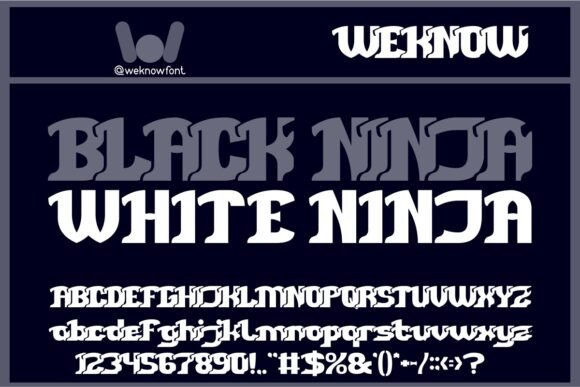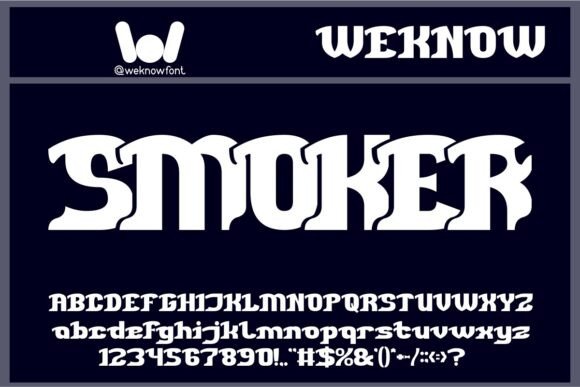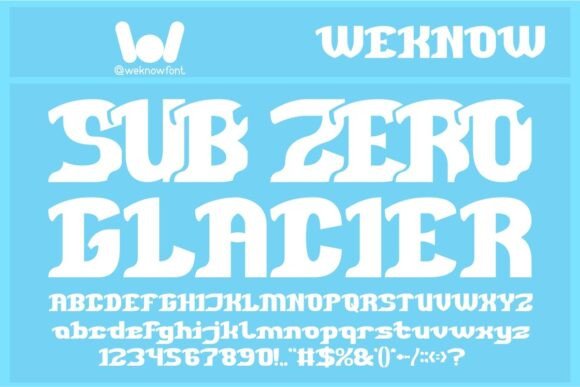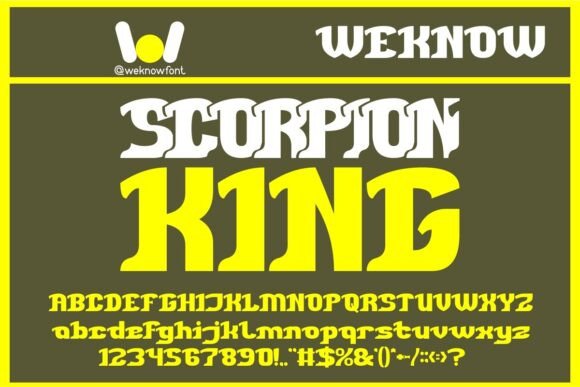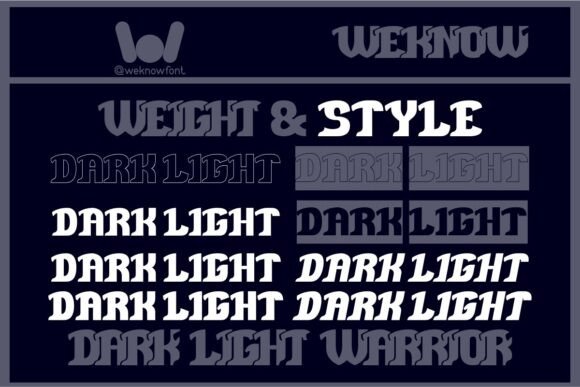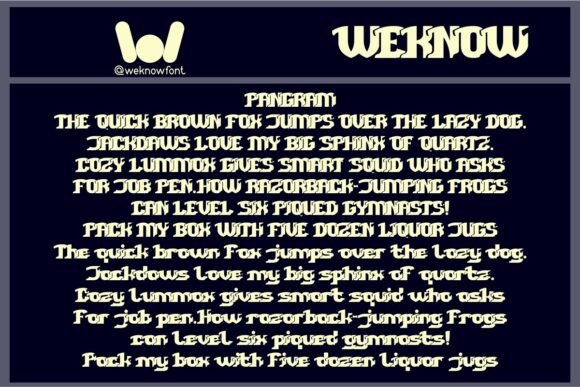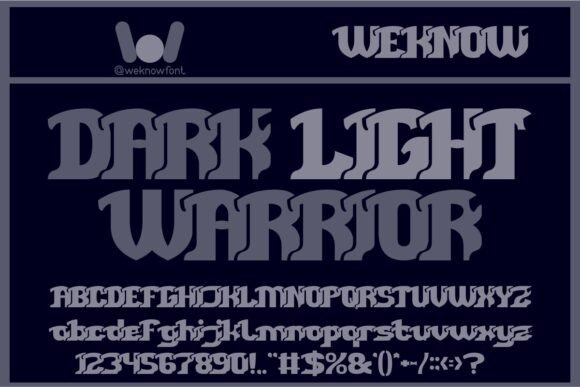
Unleash Your Creativity with Dark Light Warrior Font
Step into the captivating realm of the Dark Light Warrior font, an imaginatively crafted Gothic display type that echoes the daring spirit of modern-age warriors. This font flawlessly fuses fancy and functional, making it a diverse choice for transforming the mundane into extraordinary. Whether you’re a designer, crafter, or simply someone looking to add a touch of intrigue to your creative projects, Dark Light Warrior is the perfect companion.
A Font that Embodies the Spirit of Warriors
Dark Light Warrior font is not just a typographic style, but an experience. Its Gothic roots and modern twist evoke the fearlessness and boldness of warriors, making it an ideal choice for projects that require a sense of adventure and daring. From logos and headlines to corporate and brand identities, this font can add a touch of sophistication and elegance.
Endless Possibilities for Creative Expression
The Dark Light Warrior font is incredibly versatile, making it suitable for a wide range of applications. Here are some ideas to get you started:
- Apparel Industry: Add a touch of intrigue to your sartorial display with Dark Light Warrior. Create eye-catching labels, tags, or even t-shirt designs that stand out from the crowd.
- Music, Movies, and Games: Use Dark Light Warrior to create powerful narratives and bring your characters to life. Whether it’s a movie poster, album cover, or game title, this font is sure to make a statement.
- Magazines, Books, and Comics: Lend a fresh voice to your publications with Dark Light Warrior. Its unique style will add a touch of sophistication and make your content more engaging.
- Digital Media: Infuse charisma into your digital snapshots on Instagram or engage your audience on YouTube. Dark Light Warrior is perfect for creating eye-catching thumbnails, titles, or descriptions.
- Web Design: Use Dark Light Warrior to create a stunning website that reflects your brand’s personality. Its versatility makes it suitable for a wide range of design styles.
Why Choose Dark Light Warrior Font?
So, what sets Dark Light Warrior apart from other fonts? Here are some reasons why designers and crafters love this font:
- Unique Style: Dark Light Warrior boasts a distinctive Gothic style that’s both elegant and bold.
- Versatility: This font is incredibly versatile, making it suitable for a wide range of applications.
- Easy to Read: Despite its ornate style, Dark Light Warrior is surprisingly easy to read, making it perfect for body text and headlines.
- High-Quality: This font is crafted with precision and attention to detail, ensuring that it looks stunning in any design.
Get Ready to Unleash Your Creativity
Dark Light Warrior font is more than just a typographic style – it’s a creative tool that can help you bring your ideas to life. Whether you’re a seasoned designer or a crafty enthusiast, this font is sure to inspire you to create something amazing. So, what are you waiting for? Dive into the world of Dark Light Warrior and discover a new realm of creative possibilities.
In conclusion, Dark Light Warrior font is an incredible resource for designers and crafters looking to add a touch of elegance and sophistication to their projects. Its unique style, versatility, and high-quality craftsmanship make it an ideal choice for a wide range of applications. Whether you’re looking to create a stunning logo, eye-catching headline, or engaging digital content, Dark Light Warrior is the perfect companion. So, unleash your creativity and get ready to take your designs to the next level with Dark Light Warrior font.